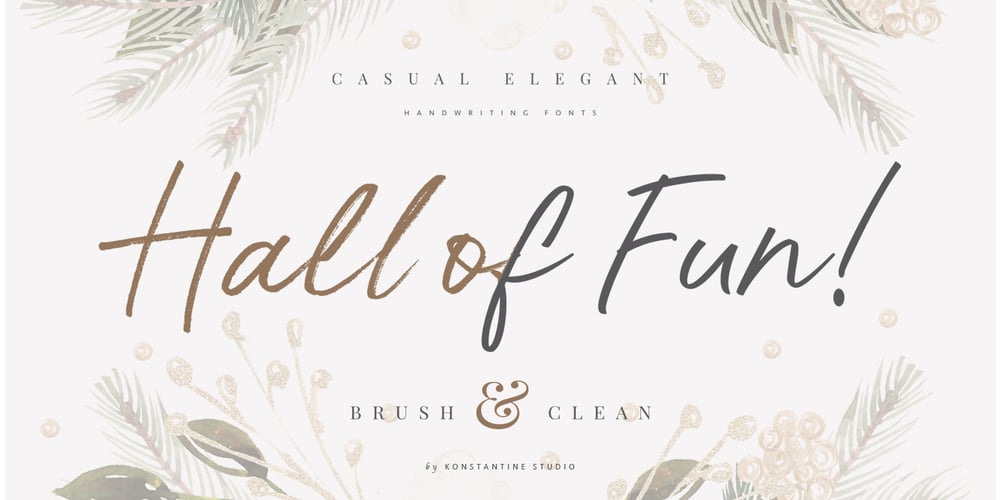
Hall Of Fun Font Family was designed by Abdilah and published by Konstantine Studio. Hall Of Fun contains 2 styles and family package options. Hall of Fun, a fast dry brush handwriting script font, comes out with clean and brush version to fit for your needs. Included the Stylistic Alternates for every letters and Ligatures to seamlessly handwriting feels. Straight from the hands and will be a perfect pair for fashion branding, logo, social media marketing, presentation, vintage products, make yourself standout with the Hall of Fun right away!